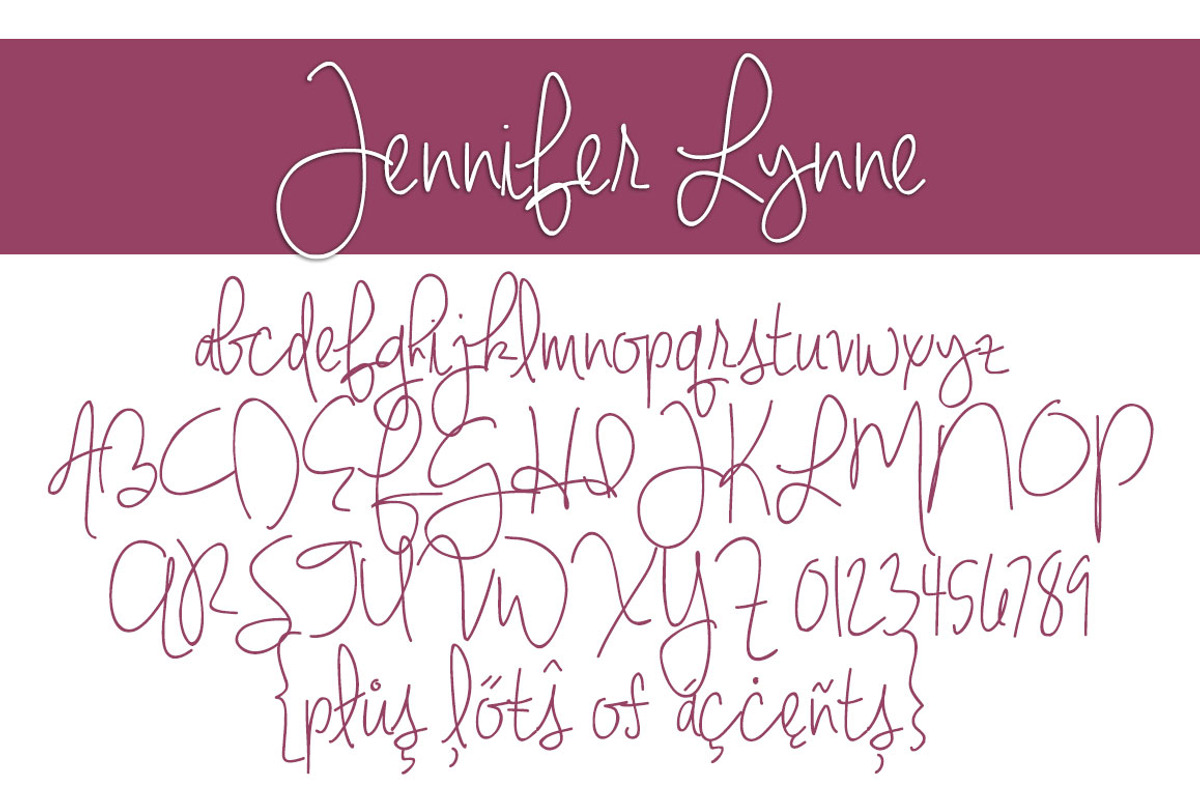
Jennifer Lynne Font Family
Jennifer Lynne Font Family by Brittney Murphy Design is a font selected for branding, posters, packaging, typography.
Why Jennifer Lynne Font Family is worth a look
Jennifer Lynne Font Family by Brittney Murphy Design fits naturally into Branding, posters, packaging, typography.